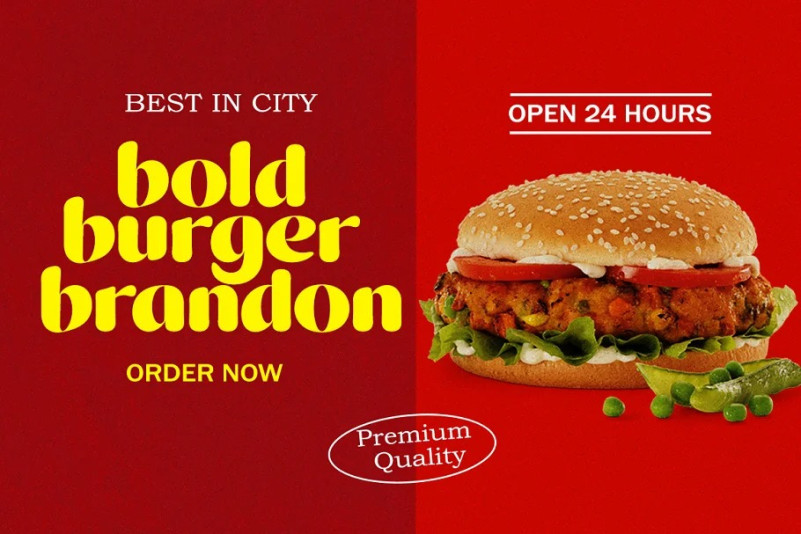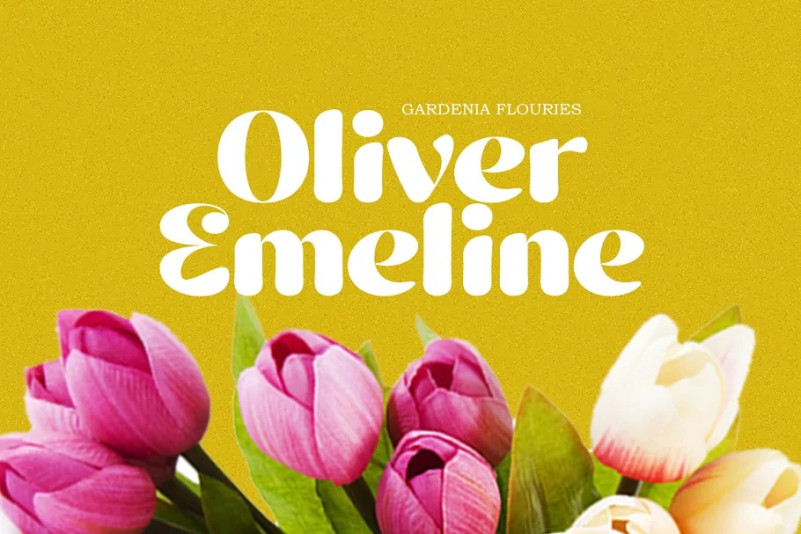
Konecya Font
Konecya Featuring Display Font totality and elegance. One of my most recent first releases, naturally drawn with pinpoint accuracy. Konecya has the perfect amount of simplicity and subtlety for your next project. It perfectly represents the retro and vintage aesthetic. I recommend this font for your next logo, invitation, and home decor project that needs a succinct alternative combination touch!